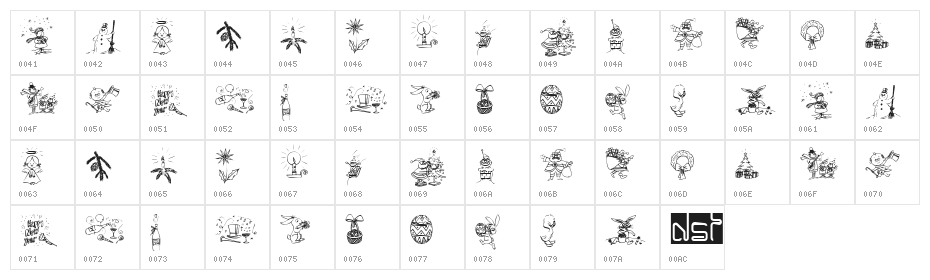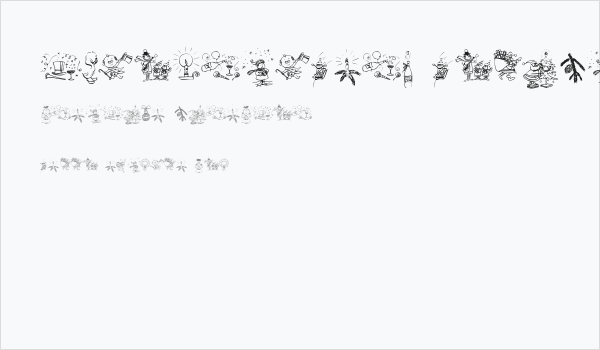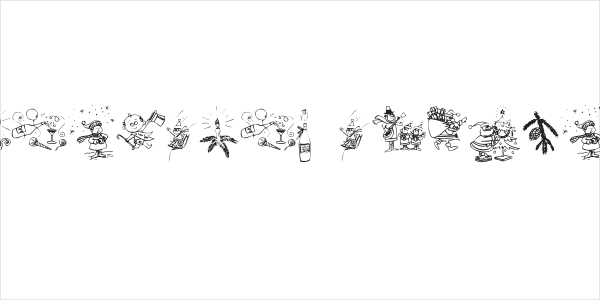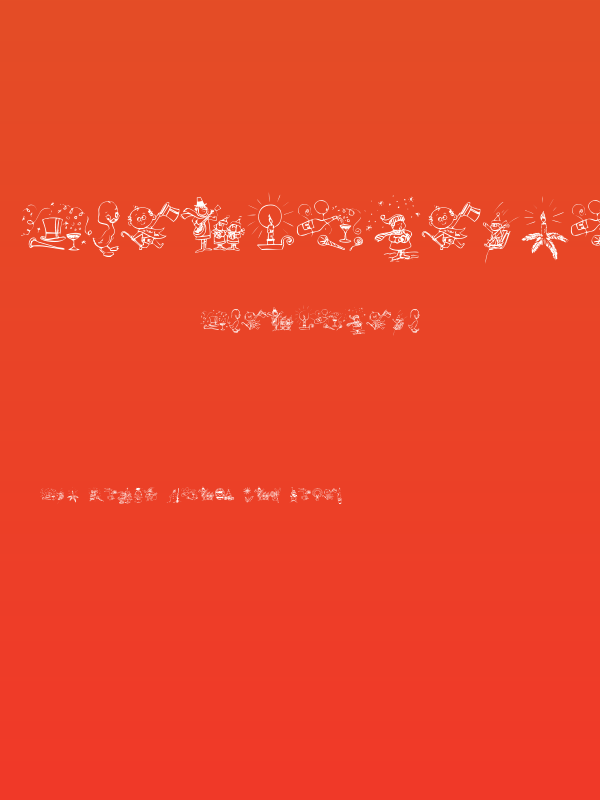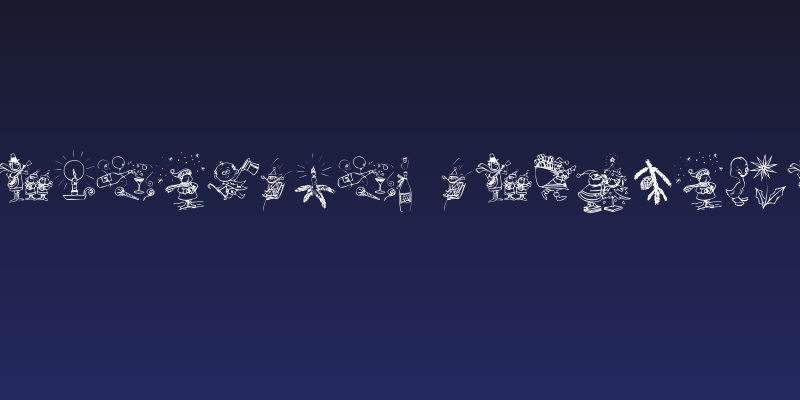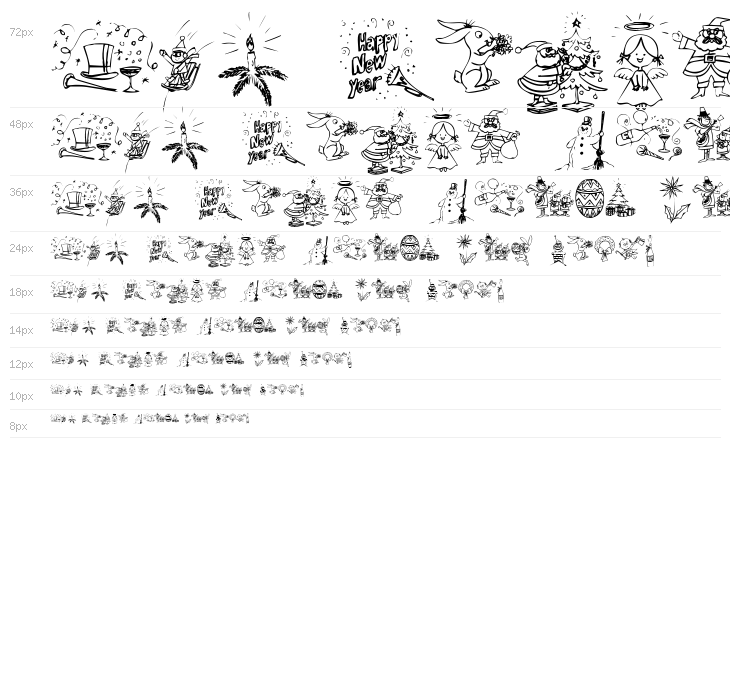
Typographers Holidayfont Font
Typographers Holidayfont Description
This collection features a whimsical and festive set of holiday-themed illustrations. Each character is a playful depiction of traditional holiday symbols, such as snowmen, Santa Claus, reindeer, and other seasonal motifs. The style is hand-drawn with a light-hearted, cartoonish flair, capturing the joy and spirit of the holiday season. The illustrations are detailed yet maintain a simplicity that makes them versatile for various design applications. The line work is consistent, with a medium contrast that ensures clarity and visibility. These graphics are perfect for adding a touch of holiday cheer to any project.
Use CaseLogos, Decorative elements
Proposed ProjectsIdeal for holiday greeting cards, festive invitations, seasonal decorations, and themed social media posts.